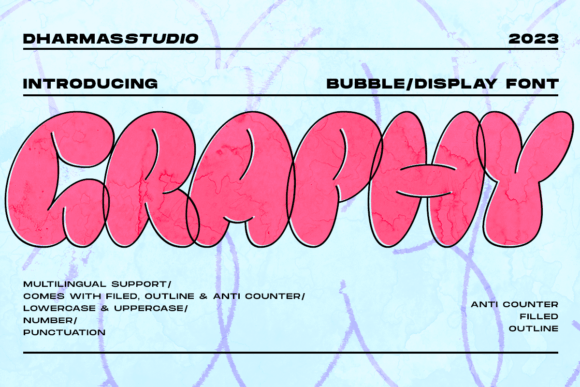
Introducing Graphy, the font that will bring your designs to life with its energetic spirit and trendsetting vibes! Created by Dharmas Studio, this captivating display font is the perfect choice for anyone looking to elevate their designs and make them truly eye-catching.
Inspired by the captivating world of street art and the iconic Y2K culture, Graphy fuses the edginess of graffiti with a modern twist. Its unique bubble font style is sure to grab attention and leave a lasting impression on anyone who sees it.
What sets Graphy apart is its versatility. With three distinct styles to choose from - Filled, Anti Counter, and Outline - this font offers endless possibilities for your creative projects. Whether you're working on logos, branding, or social media graphics, Graphy adds an urban, contemporary edge that will make your designs stand out from the crowd.
Imagine the impact your Instagram bio or social media posts could have with Graphy. This font is specifically designed to make your text pop and grab attention. It's the perfect way to express your personality, showcase your brand, or simply add a touch of creativity to your online presence.
Graphy is not just a font, it's an experience. Its bold and dynamic aesthetic will instantly captivate your audience and create a strong visual impact. Each letter is meticulously crafted to ensure maximum legibility and style, making it a standout choice for any design project.
With Graphy, the possibilities are endless. Let your imagination run wild and bring your creative vision to life. Whether you're a graphic designer, a social media influencer, or a business owner, this font will help you leave a lasting impression and set yourself apart from the competition.